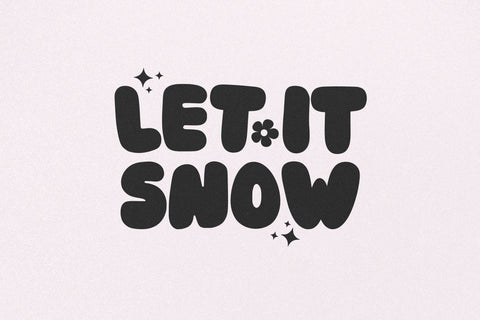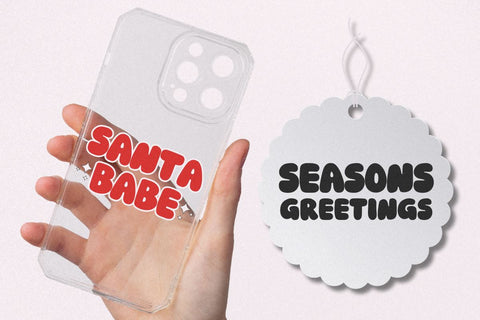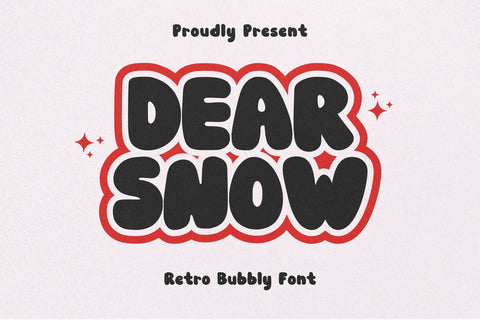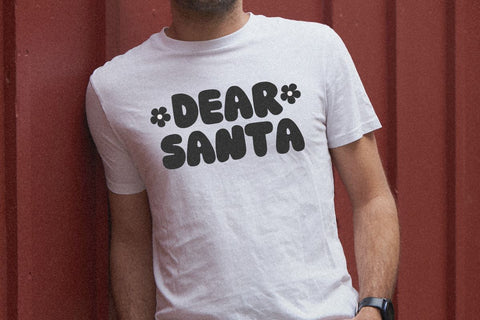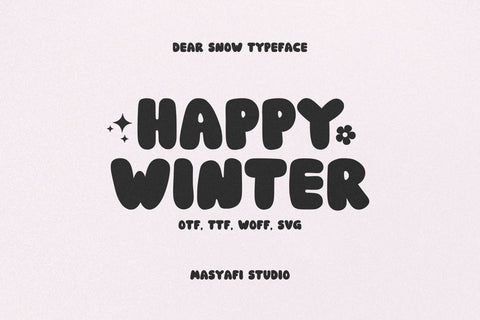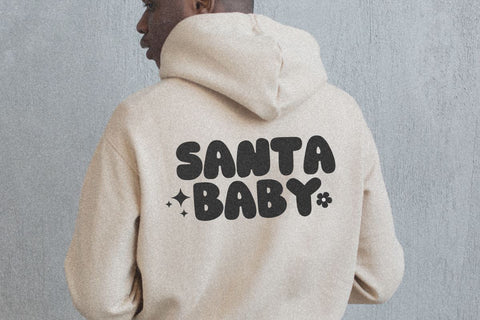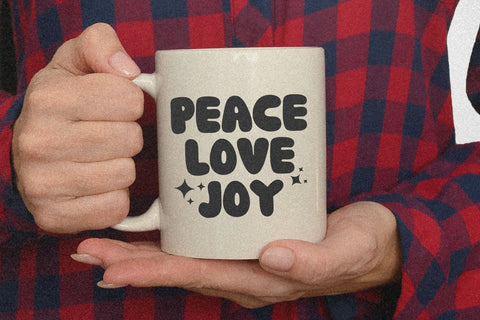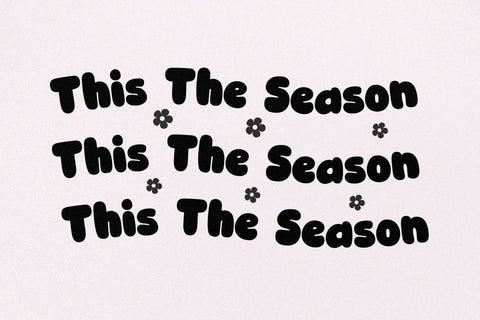
Dear Snow - Retro Bubbly Font
Hi, Introducing Dear Snow - Retro Bubbly Font
A Retro Bubbly Font with a cute and adorable style. This font is cool for mugs, t-shirts, quotes, sale tags, hoodies, greeting cards etc